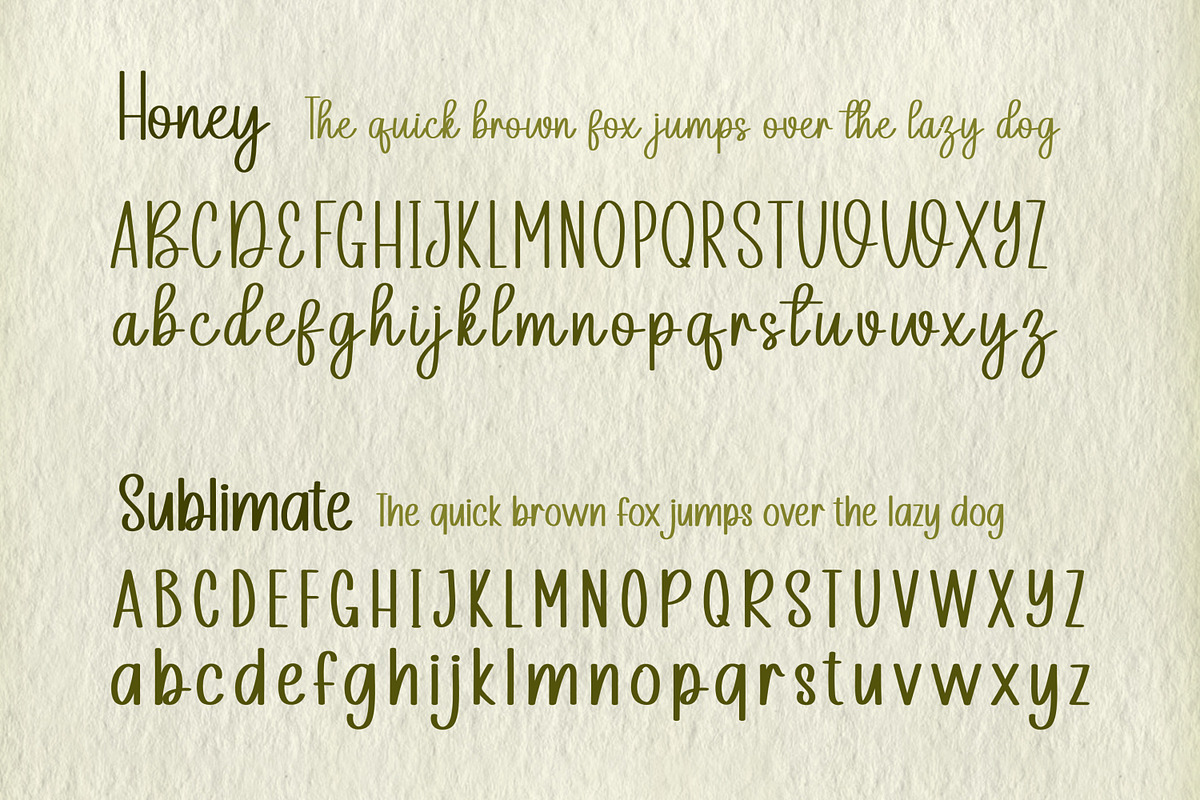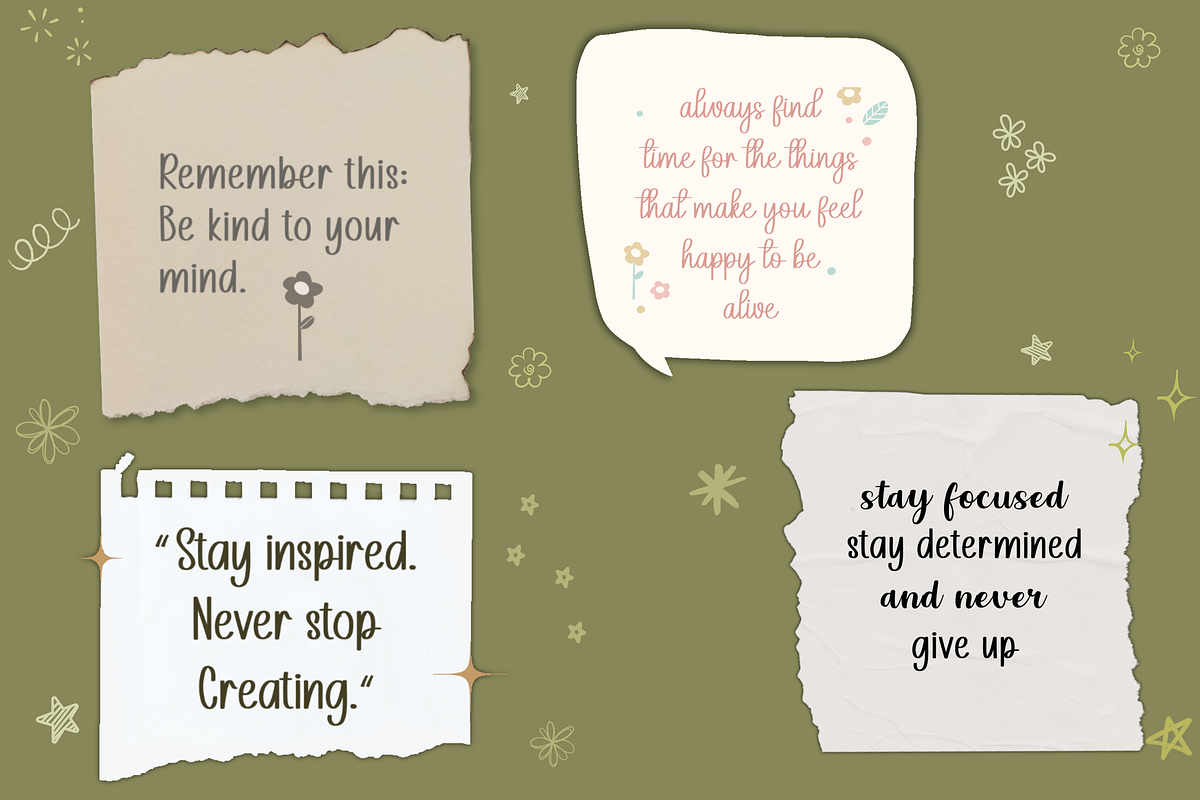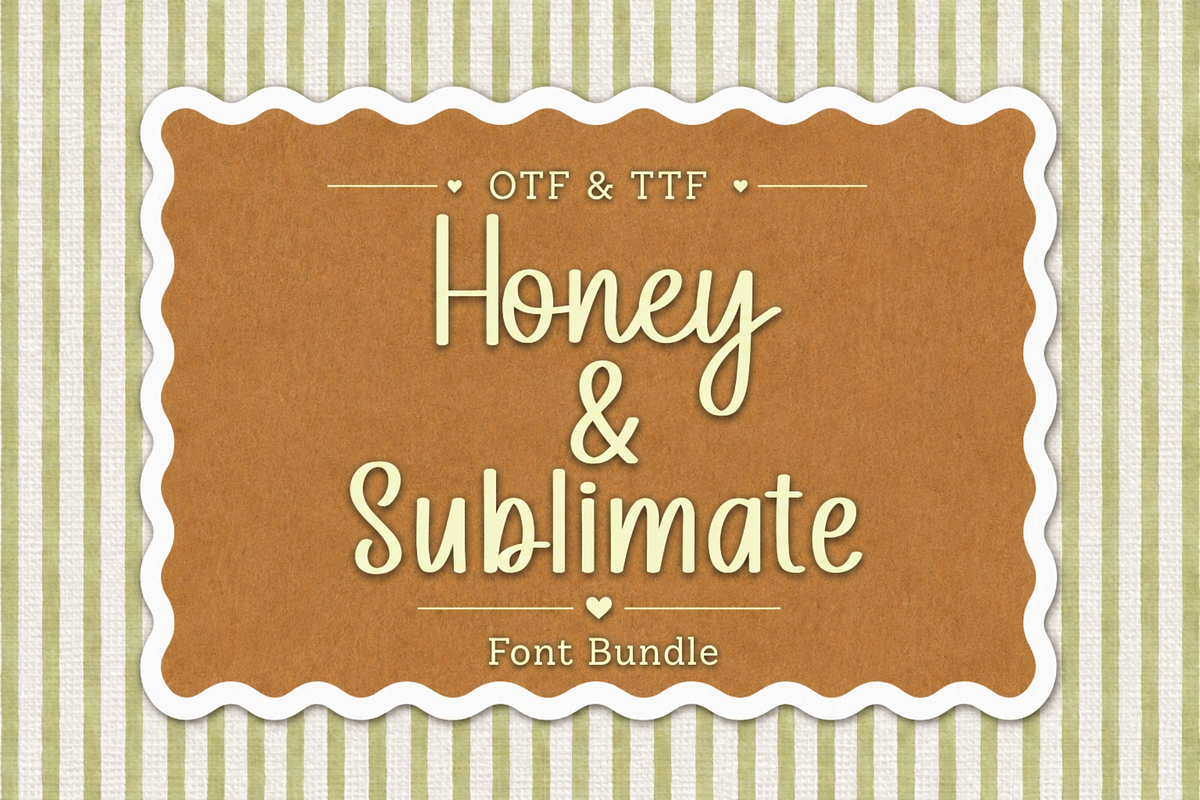
Honey & Sublimate Font Bundle
Honey & Sublimate Font Bundle – OTF & TTF
Add a sweet, handcrafted touch to your creative projects with the Honey & Sublimate Font Bundle! This charming font duo includes both OTF and TTF formats, making it easy to use with a wide variety of design software.
Perfect for sublimation designs, crafting, logos, invitations, apparel, mugs, signs, stickers, social media graphics, and more. The combination of playful lettering and a warm, cozy style makes this bundle a versatile addition to any designer or crafter’s font collection.